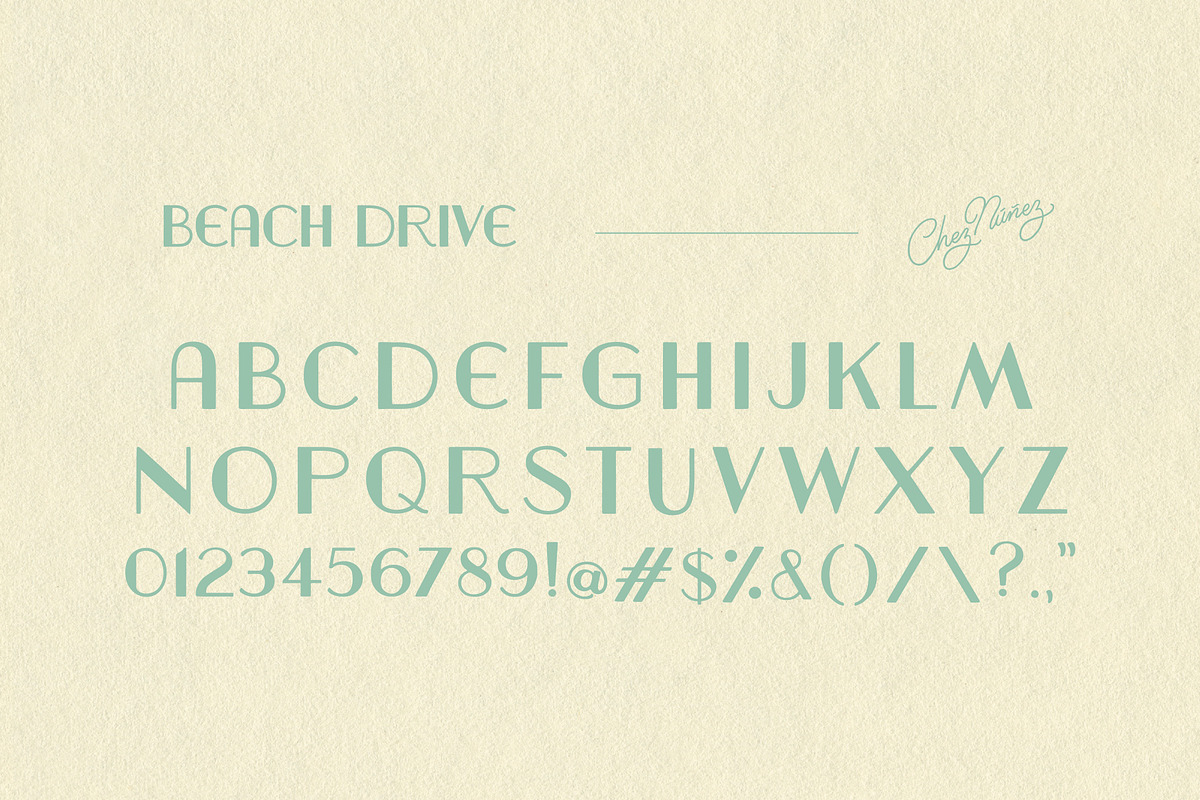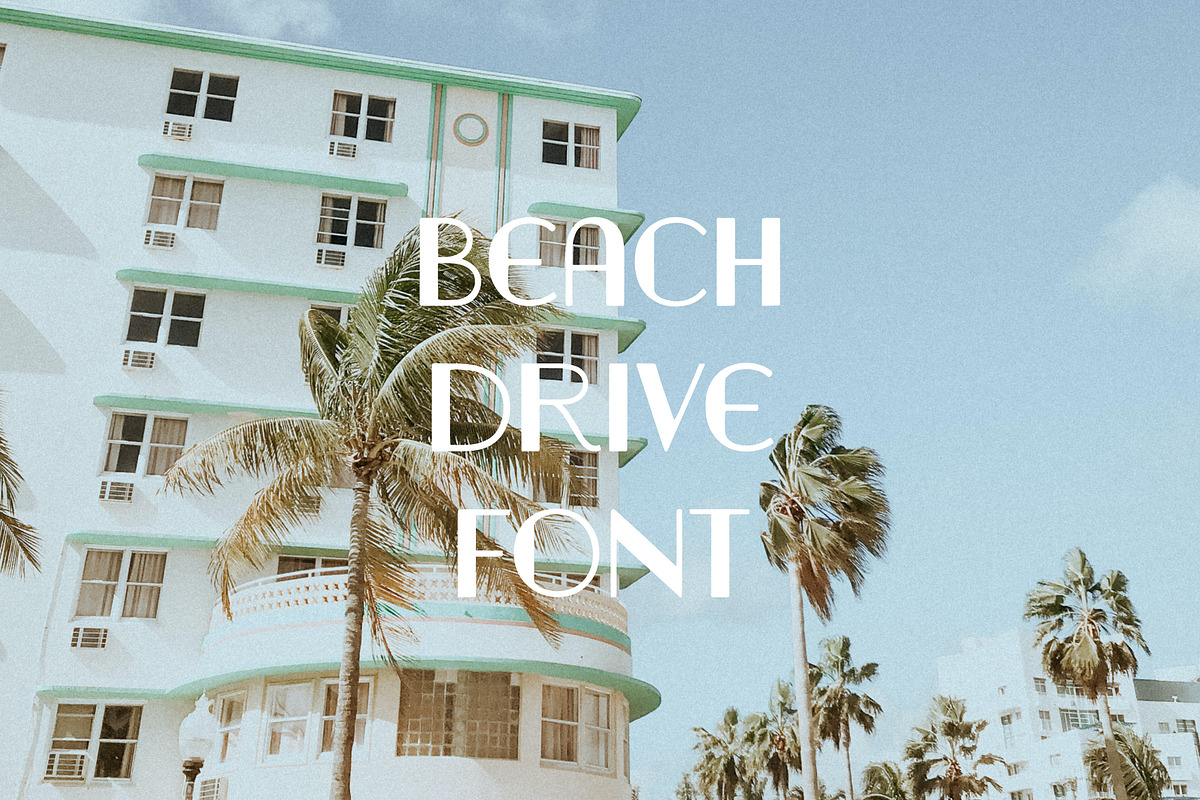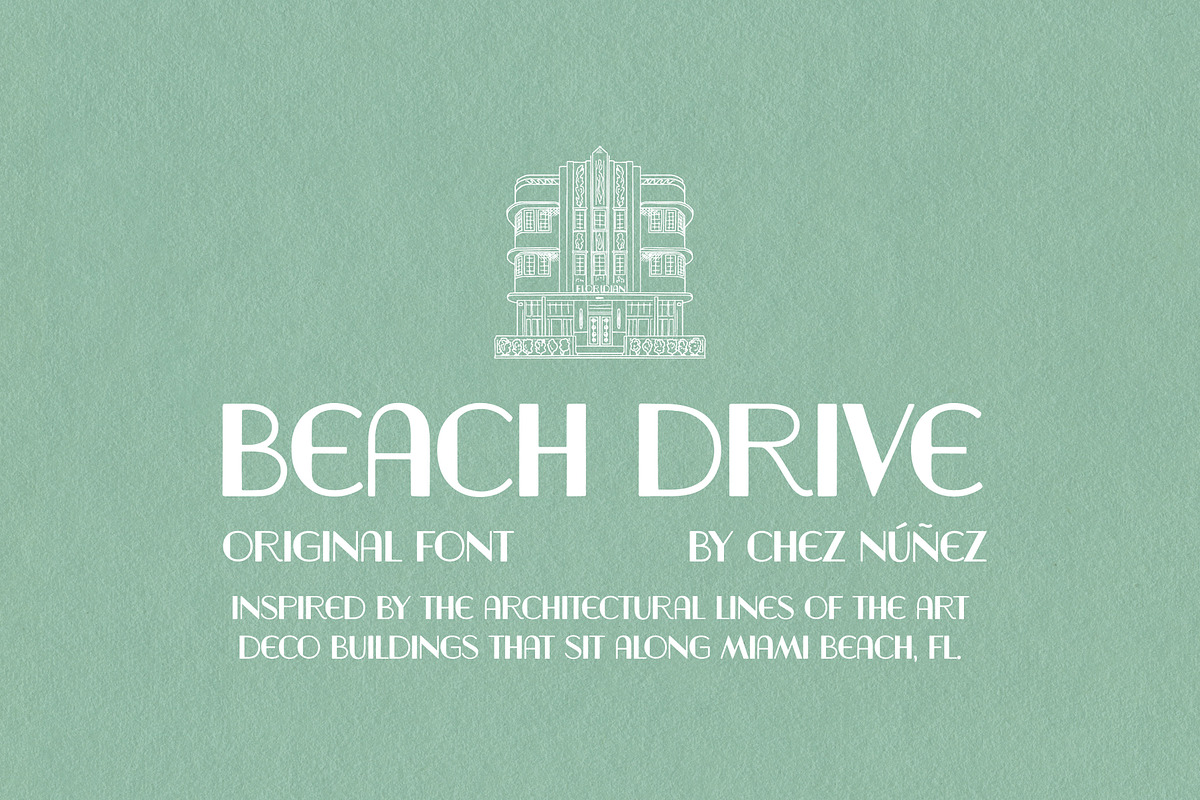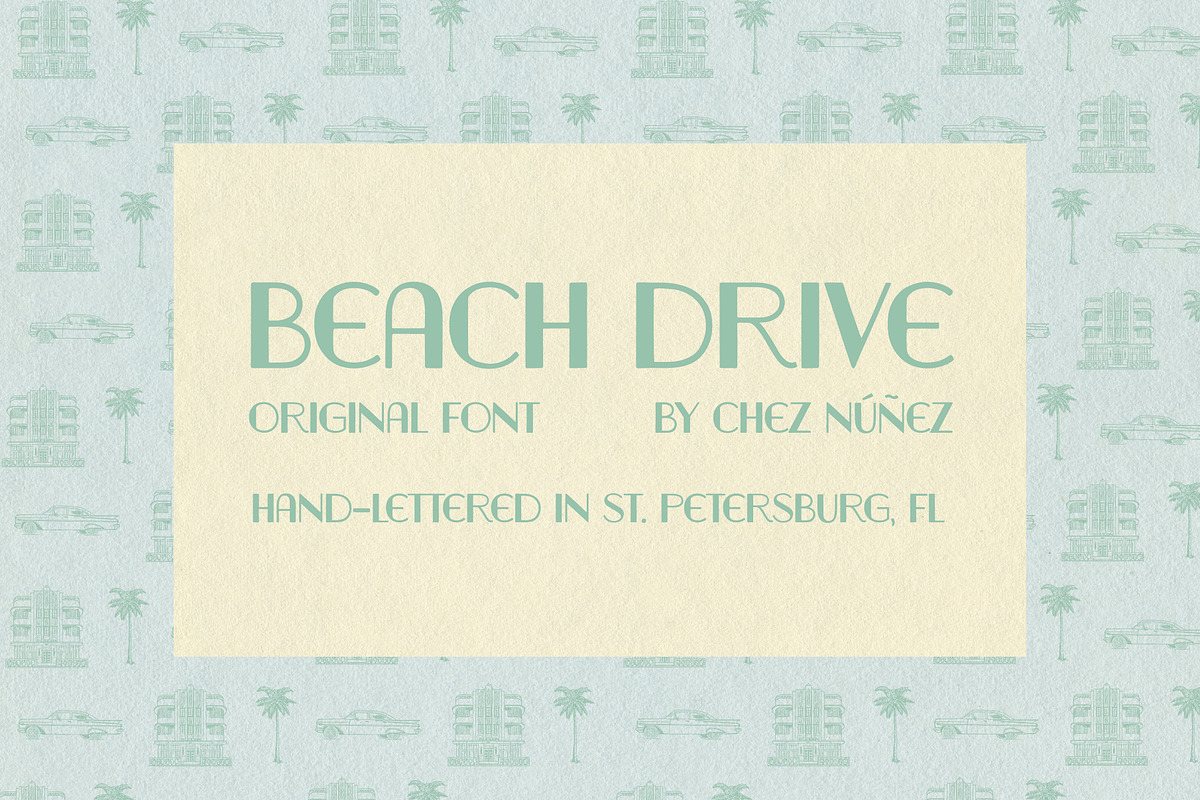
BEACH DRIVE: Vintage Florida Beach
A display typeface inspired by the soft architectural lines of the Art Deco buildings that sit along the coast of Miami Beach, FL.
- Standard Latin Characters + Numericals - lettered by hand, by Anna Núñez
- Punctuation, Mathematical Symbols, and Spanish accent marks - lettered by hand, by Anna Núñez
- 2 weights: REGULAR and OUTLINE
- Standard Latin Characters + Numericals - lettered by hand, by Anna Núñez
- Punctuation, Mathematical Symbols, and Spanish accent marks - lettered by hand, by Anna Núñez
- 1 weight: REGULAR (all caps)